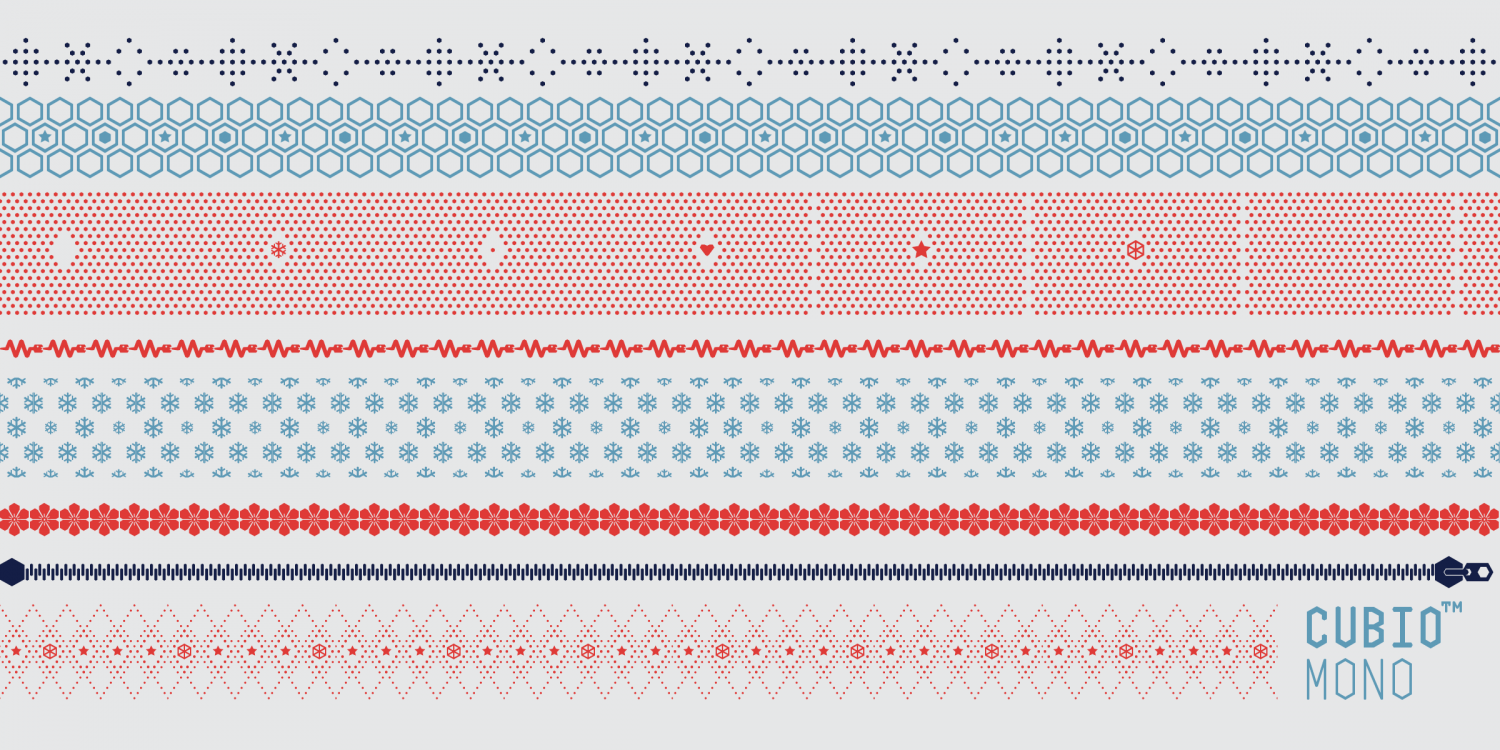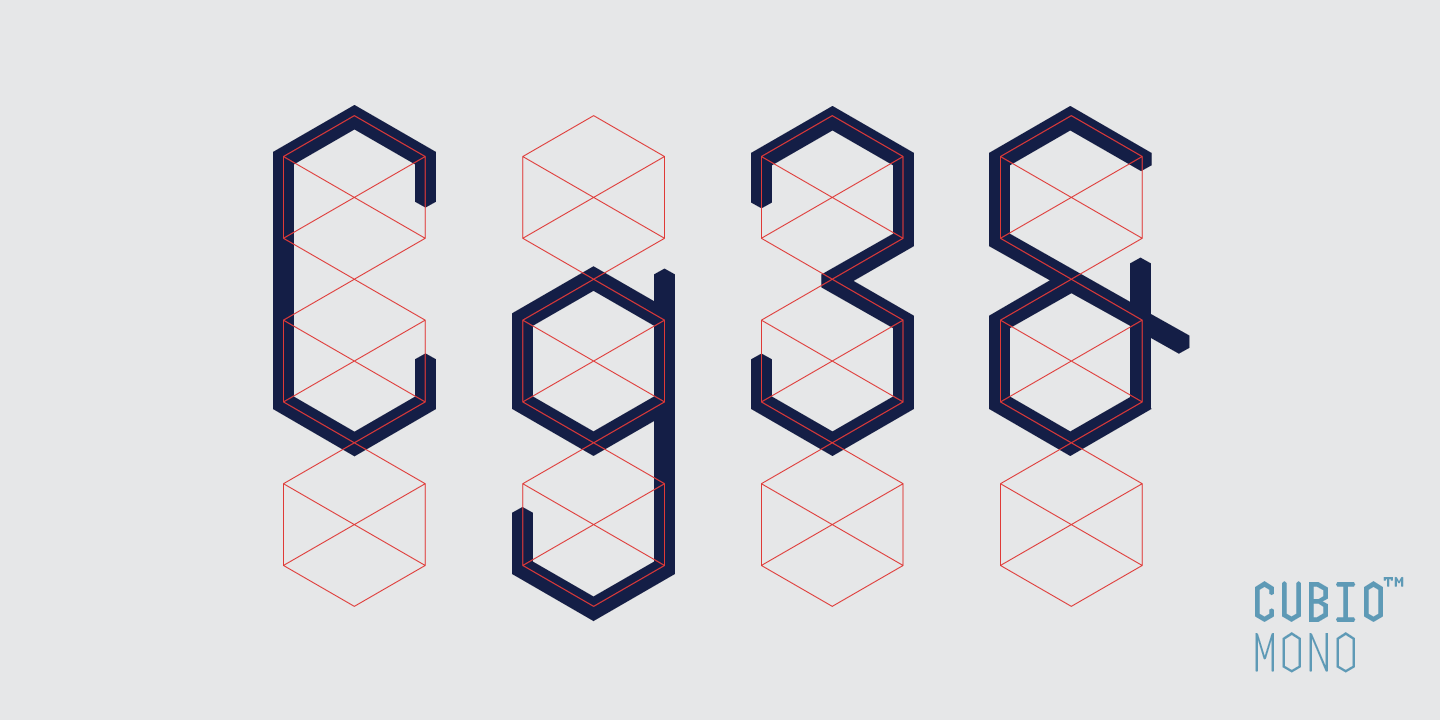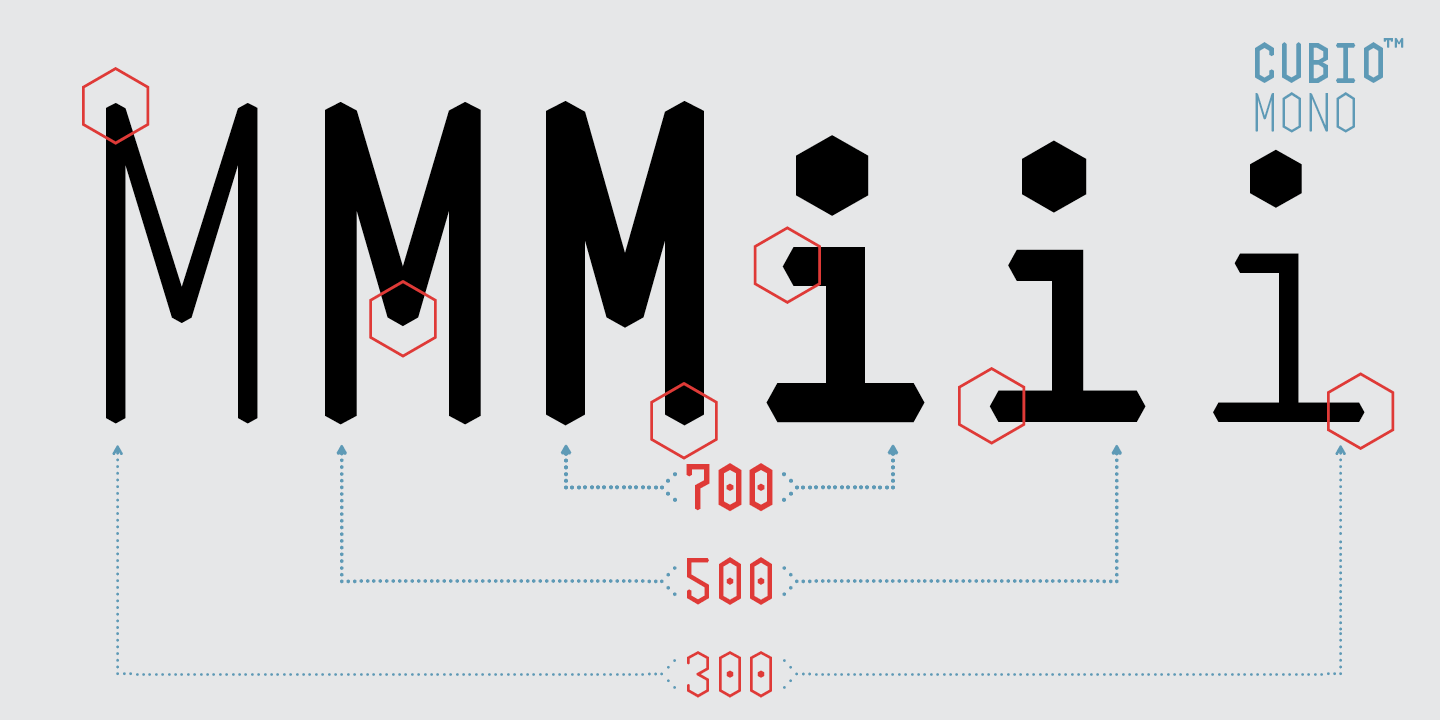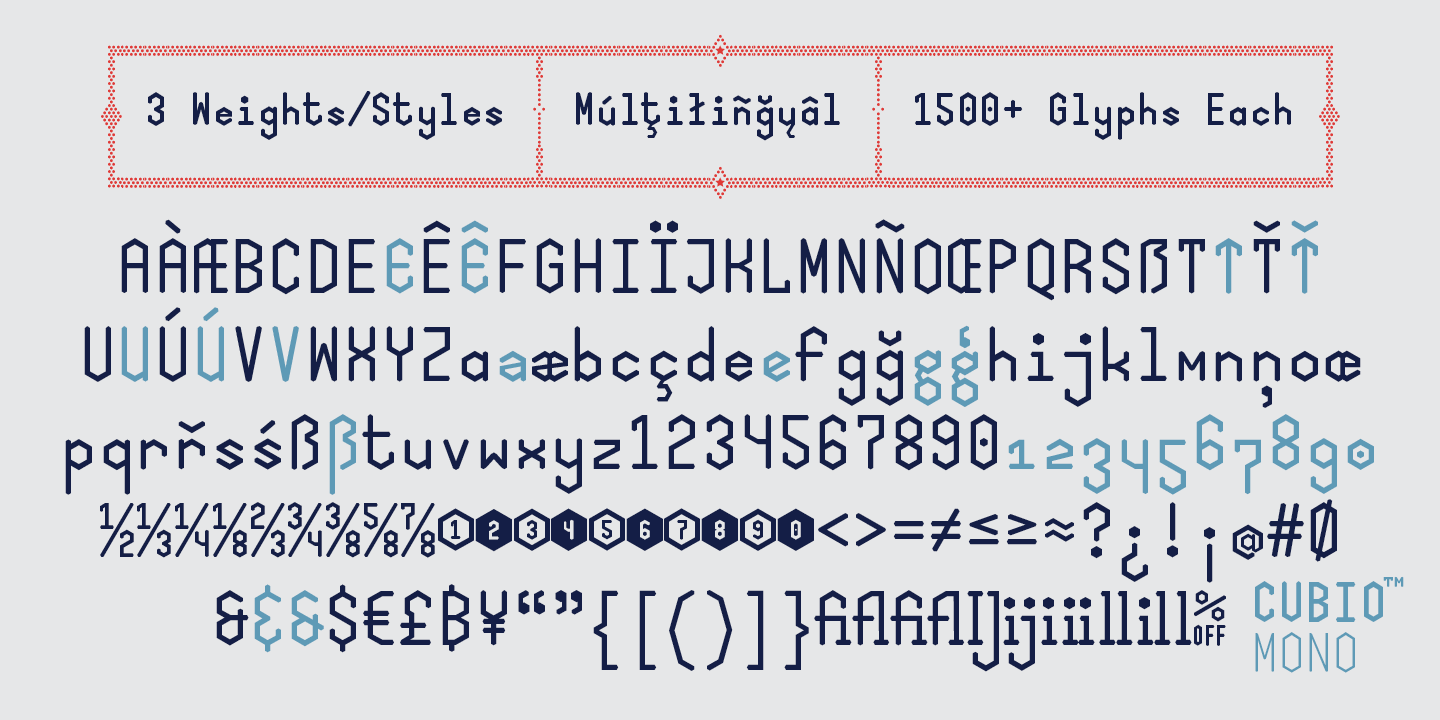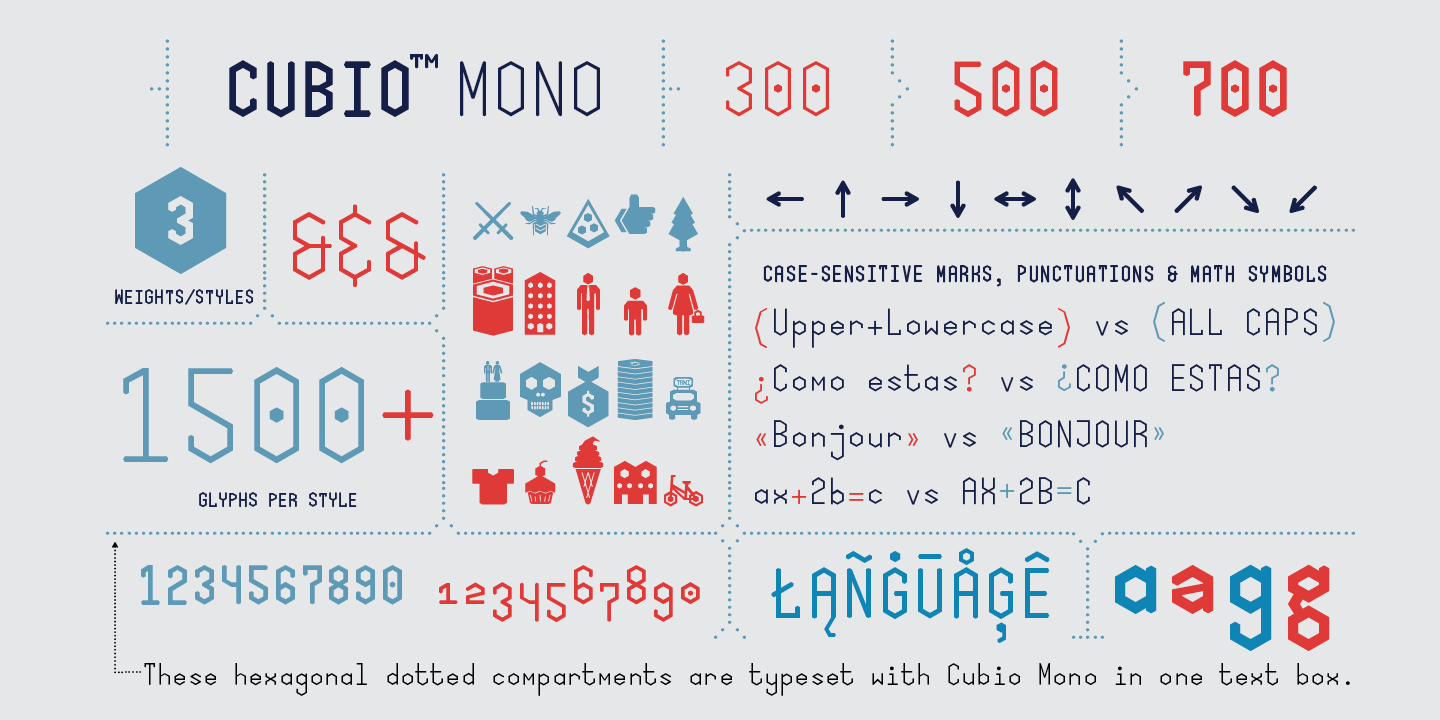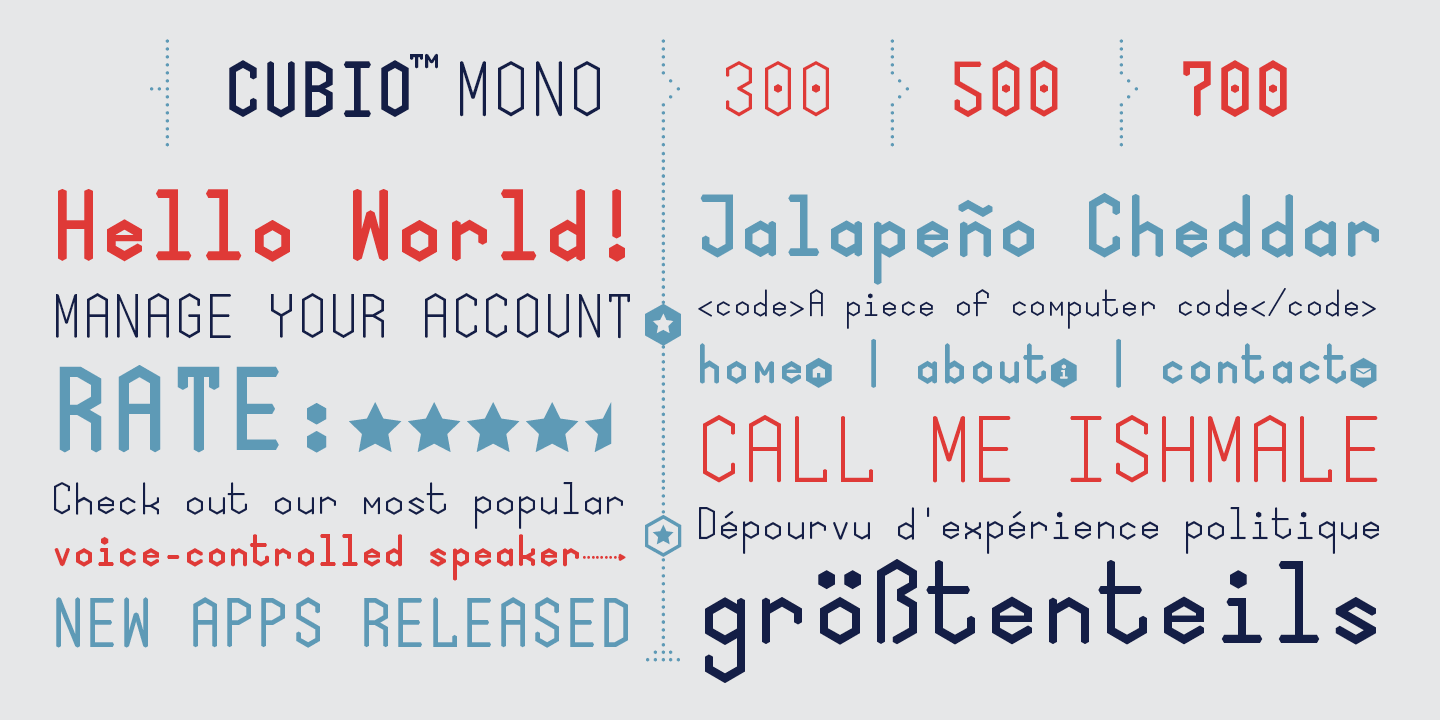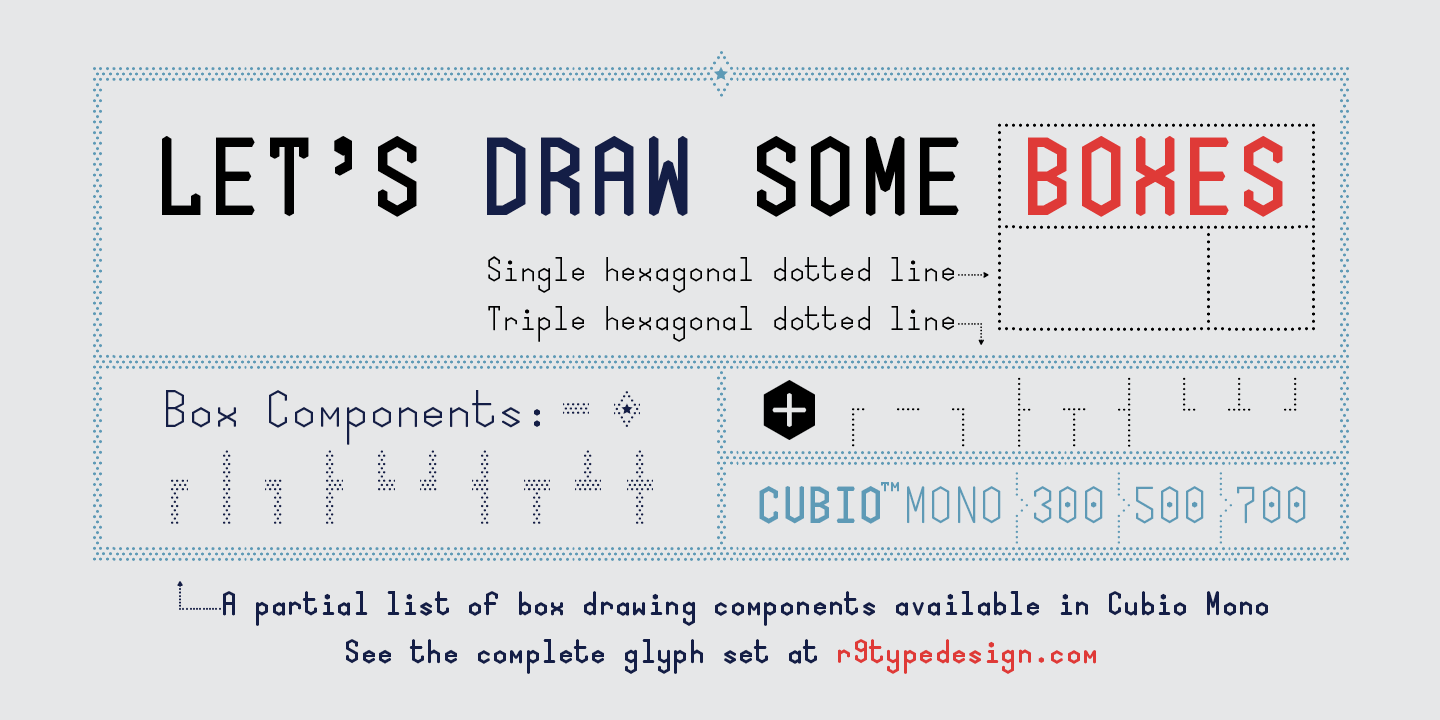
Cubio Mono
About Cubio Mono
Cubio? Mono is a new monospaced geometric sans serif inspired by the hexagonal silhouette of isometric cubes. We applied this angular form through all aspects of Cubio? type design from the overall look of letters and icons down to the small details such…